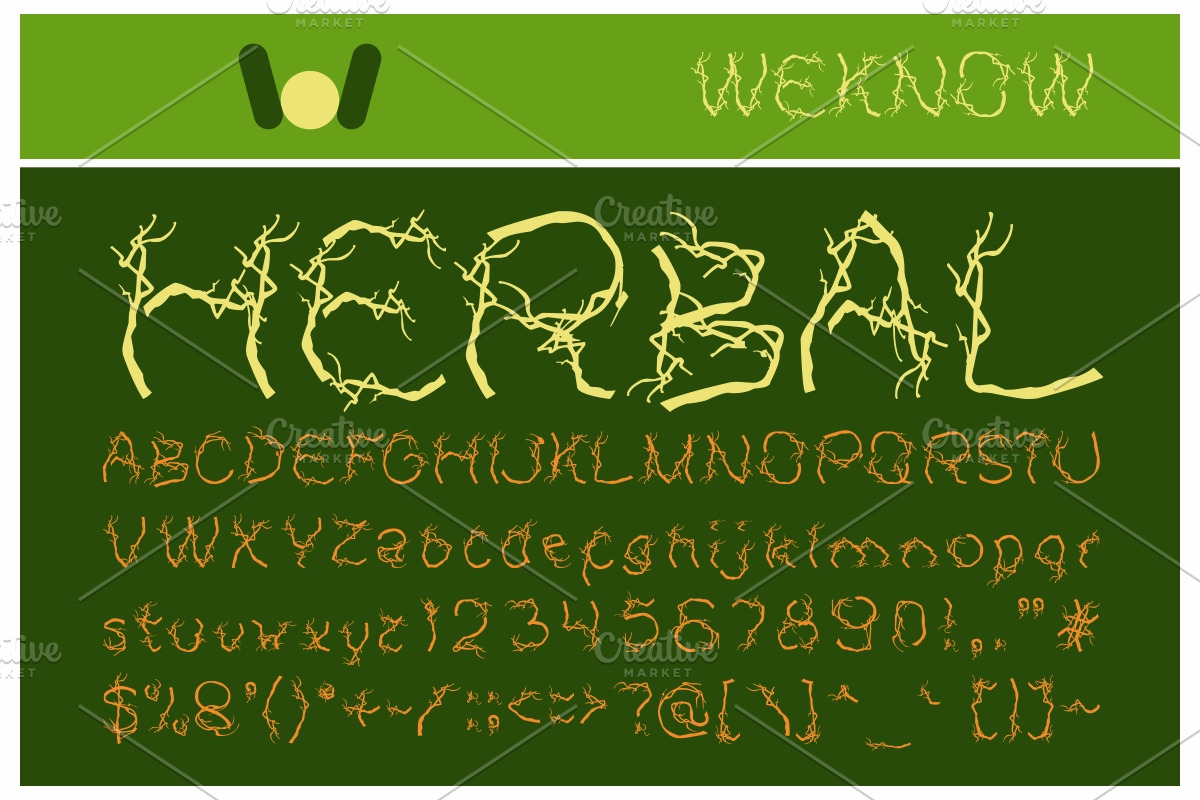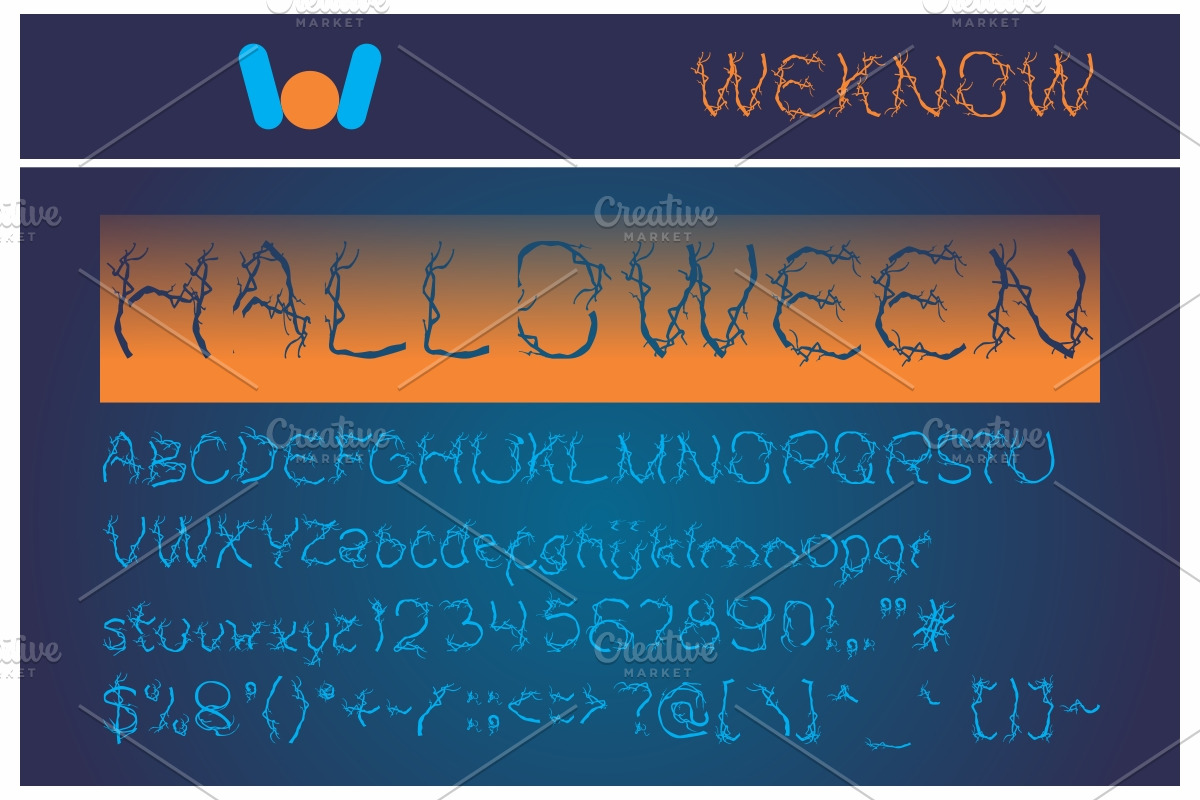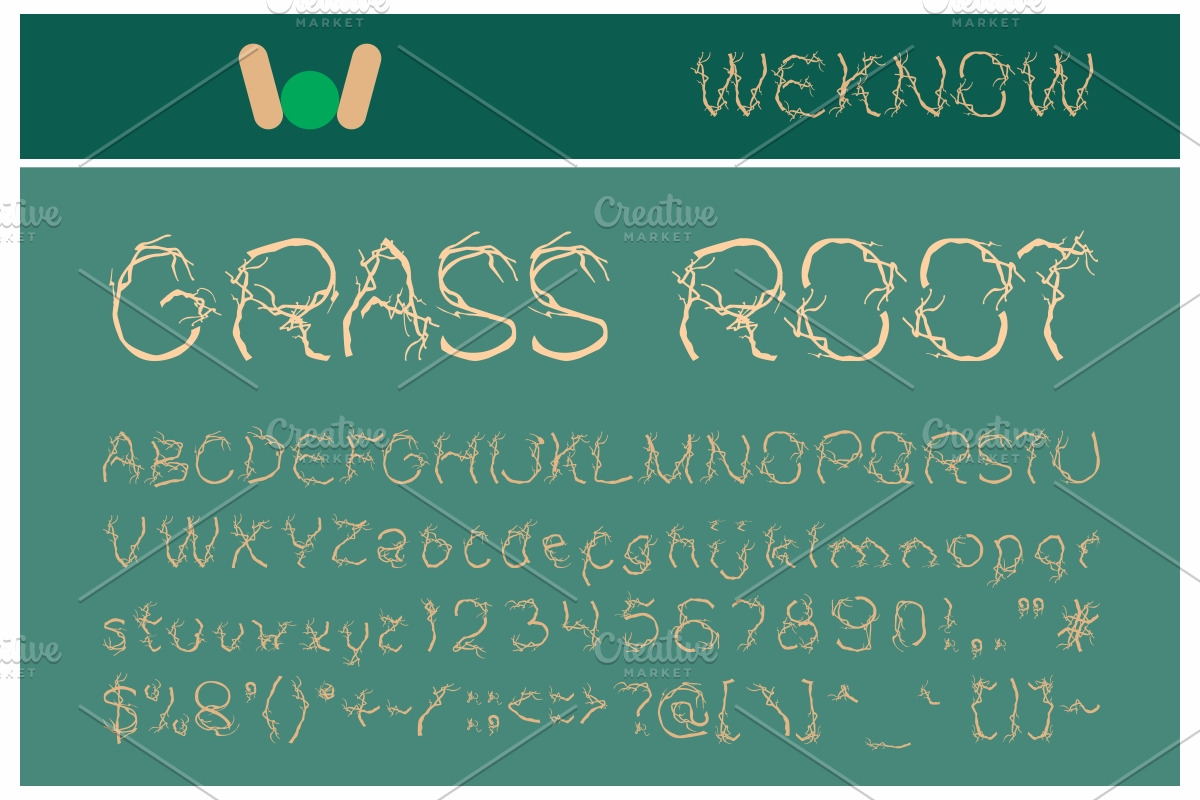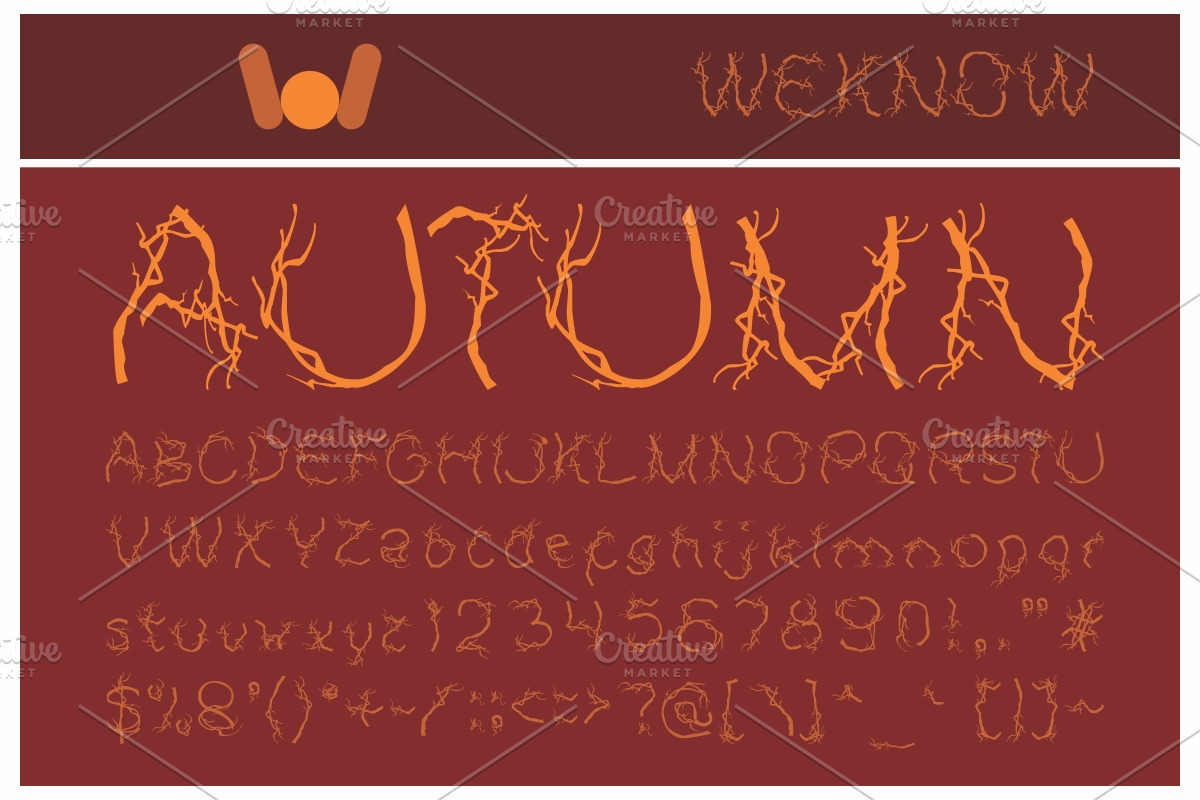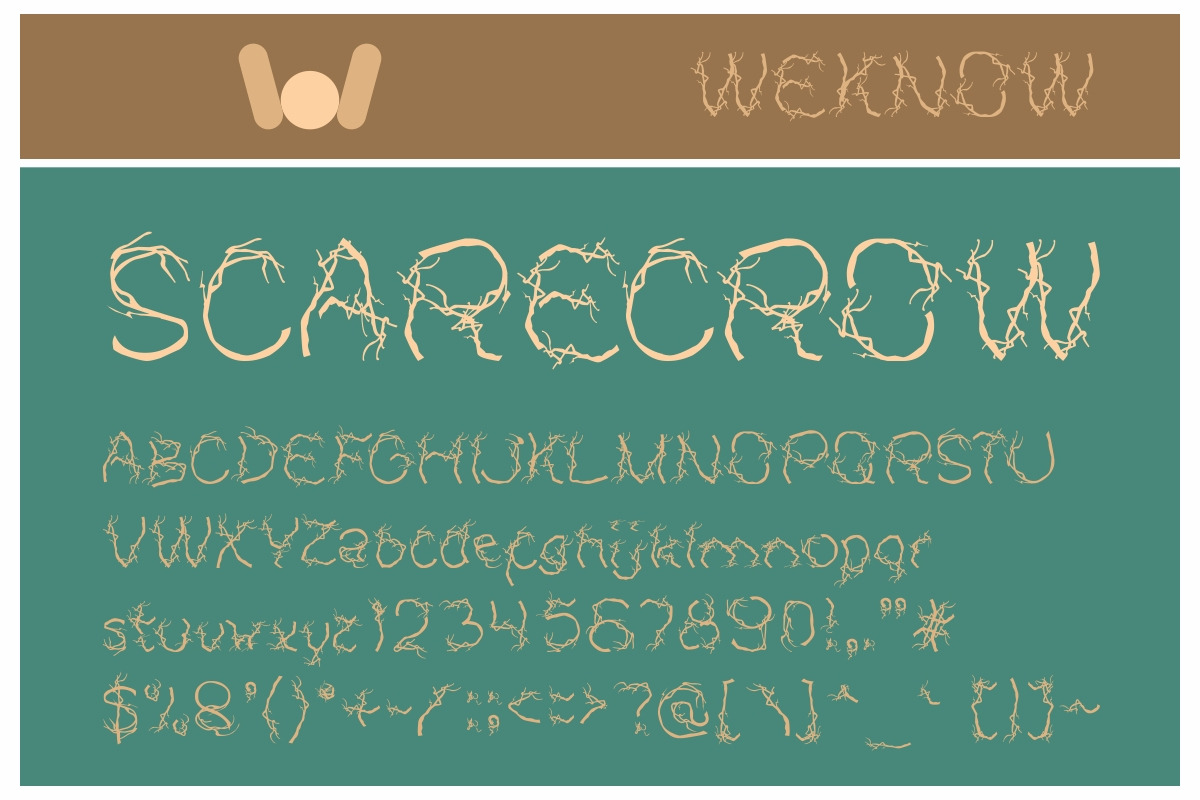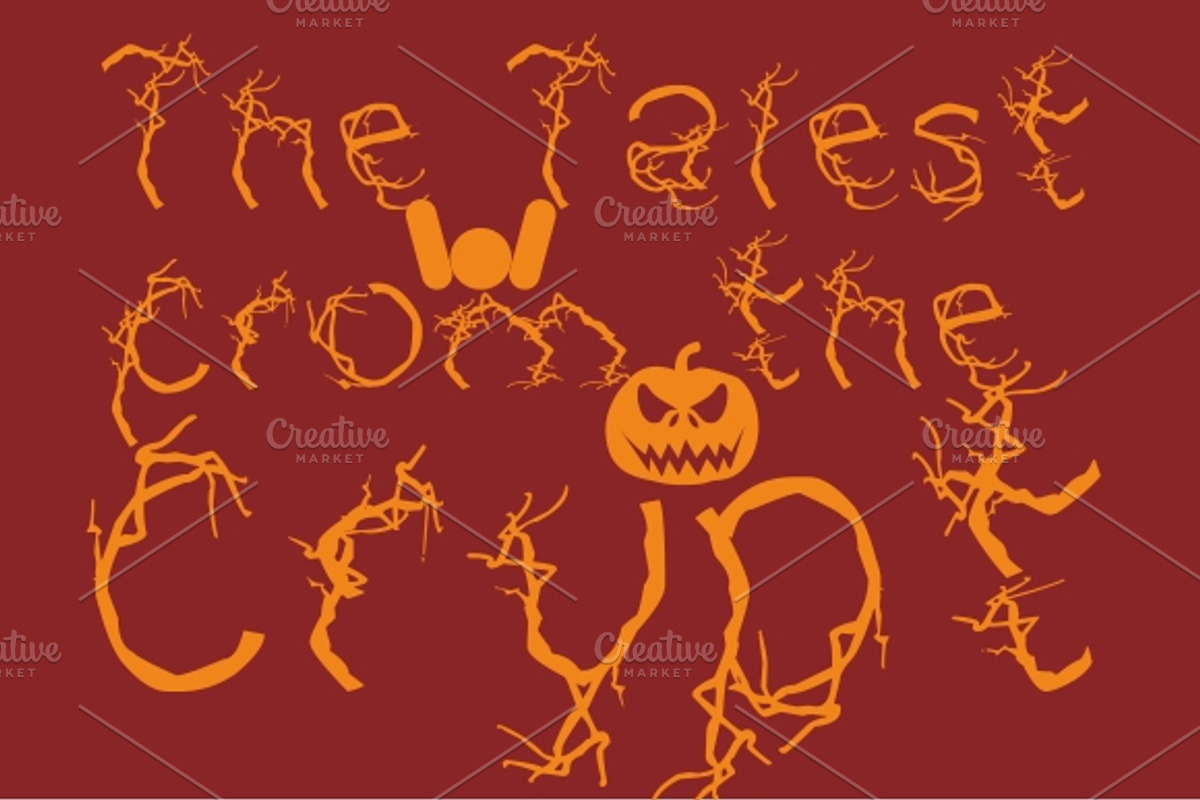
autumn font
autumn font by weknow is a font selected for branding, posters, packaging, typography.
Why autumn font is worth a look
autumn font by weknow fits naturally into Branding, posters, packaging, typography.